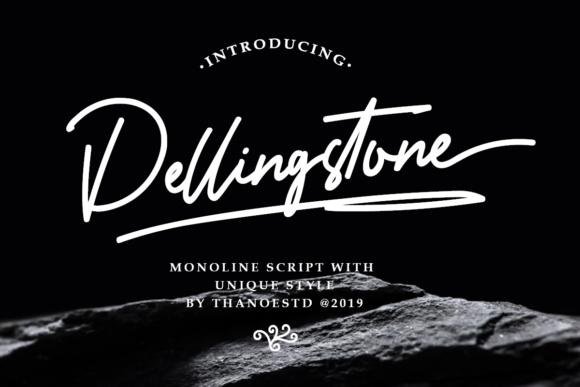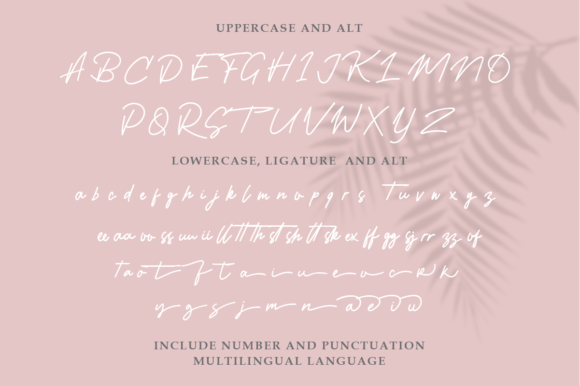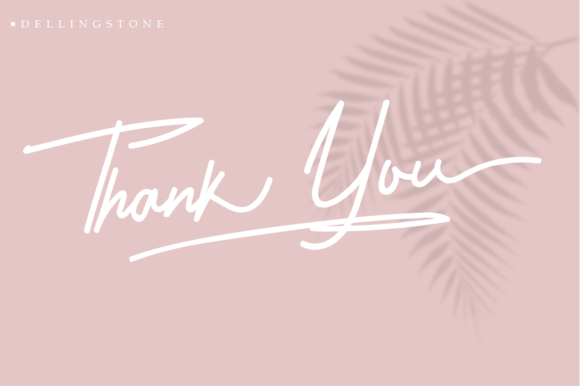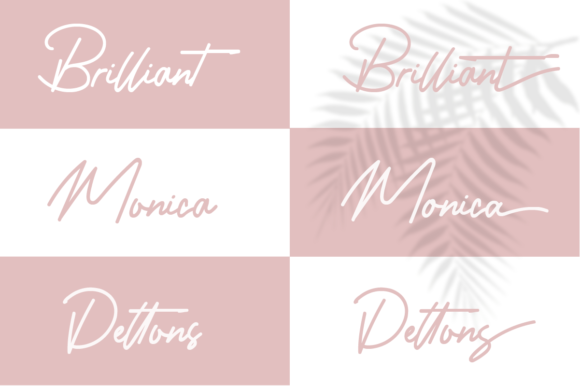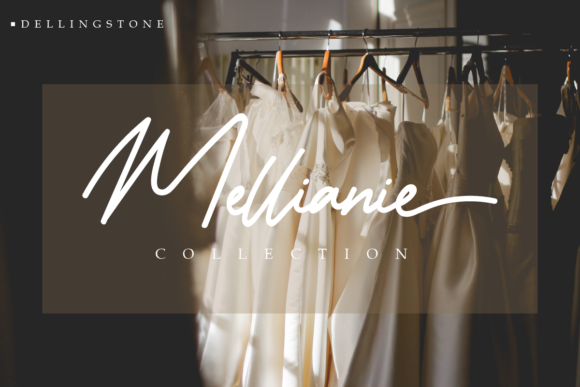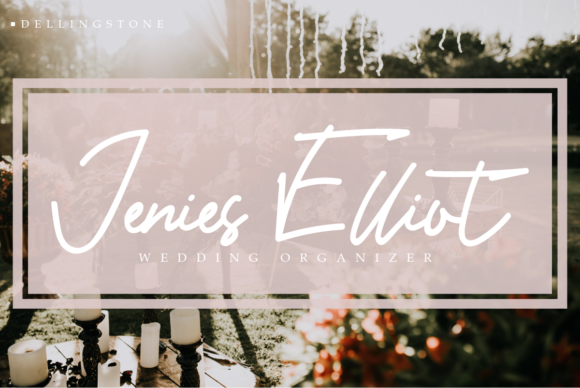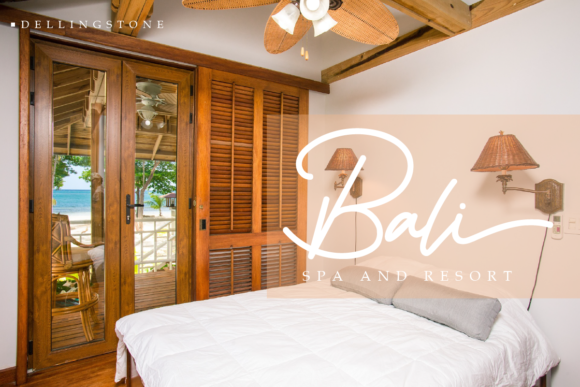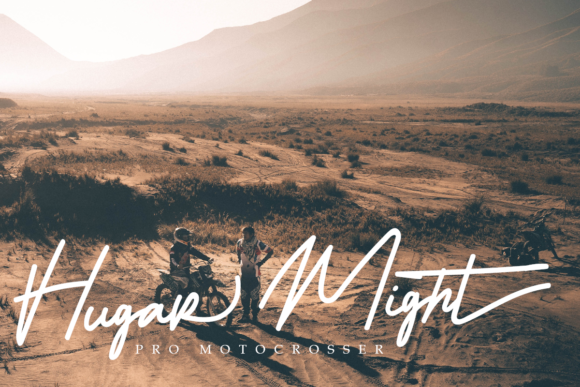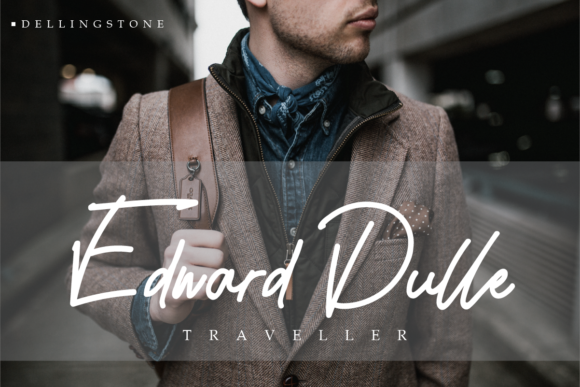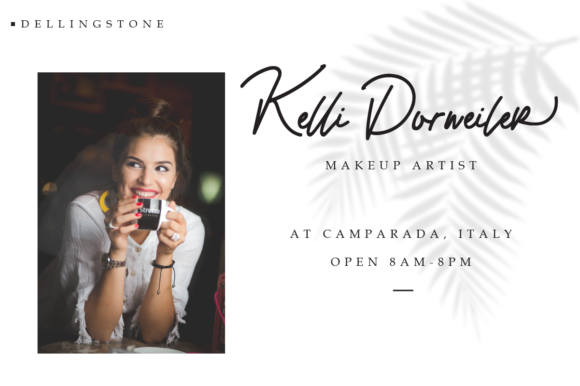
Dellingstone Font
About Dellingstone Font
Dellingstone is a stylish script, perfect for turning any design project into a true standout. Get inspired by its unique and authentic vibe.